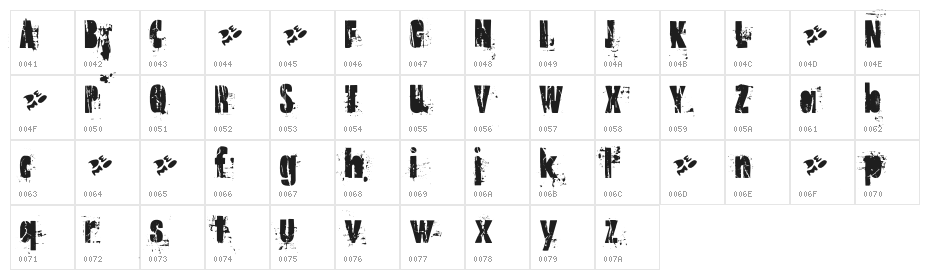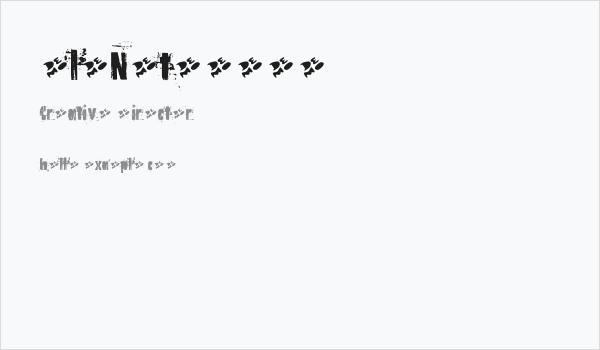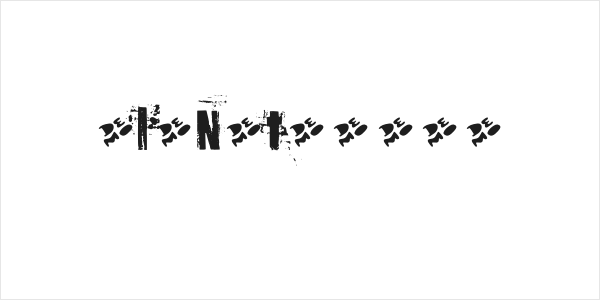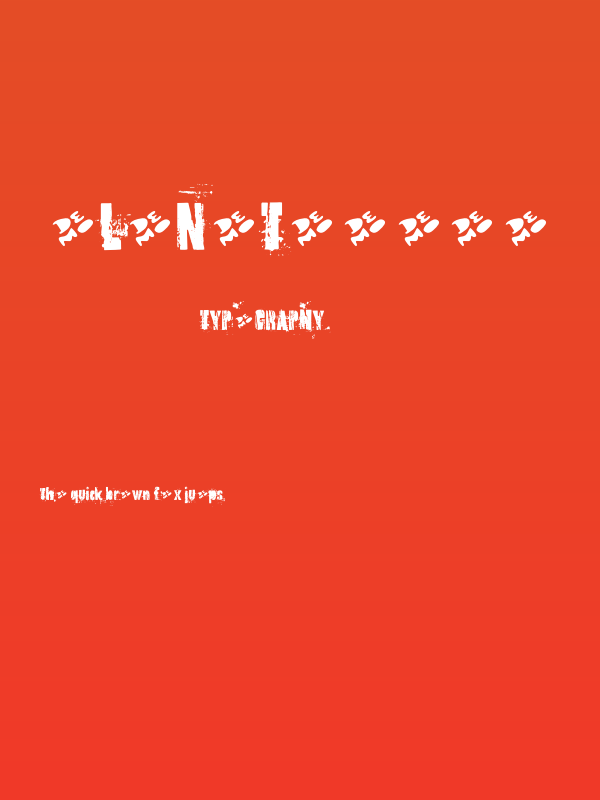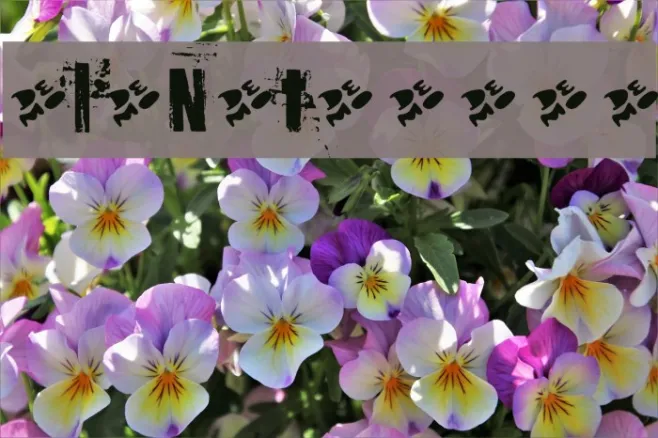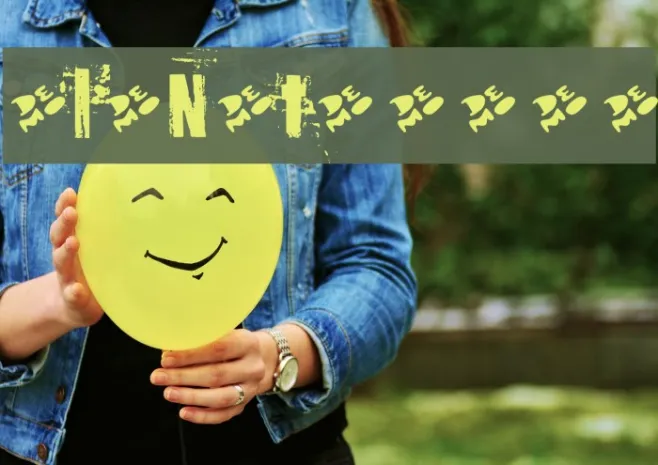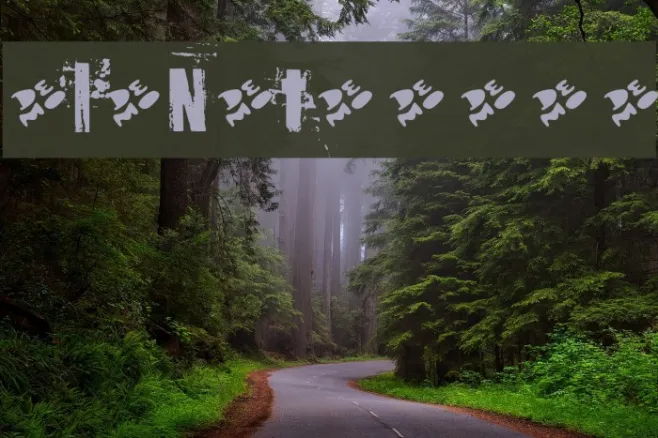
OldNoteDemo Font
OldNoteDemo Description
This font exhibits a distressed, grunge style with a worn and weathered appearance. Each character is heavily textured, giving the impression of being stamped or printed with a rough surface. The letters have a bold, blocky structure, yet the irregular edges and distressed details create a dynamic and edgy look. The uppercase and lowercase letters maintain a consistent style, with the uppercase being slightly larger and more pronounced. Numbers and special characters follow the same design, ensuring uniformity across all glyphs. This font is ideal for projects that require a rugged, vintage aesthetic.
| Overall Style | Vintage, Grunge |
| Use Case | Headlines, Posters, Logos |
| Proposed Projects | Ideal for album covers, posters, urban-themed designs, and any project needing a rugged, vintage look. |